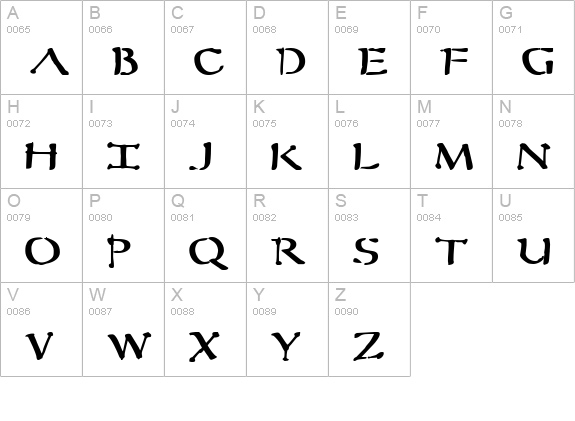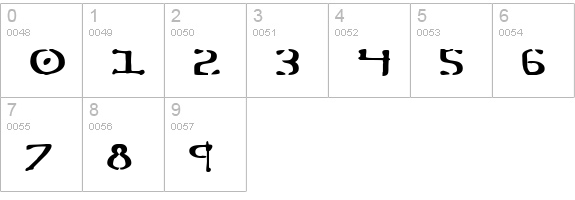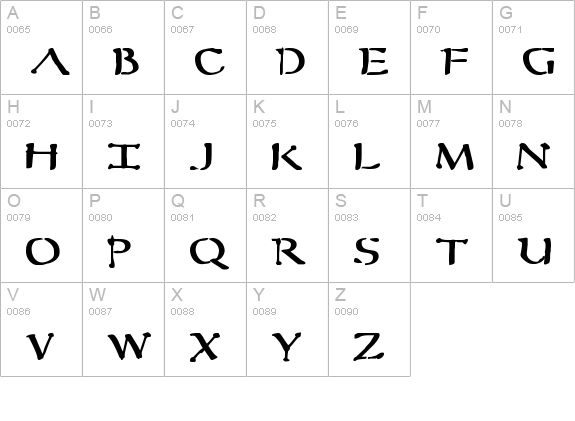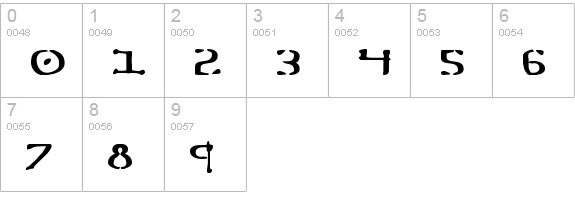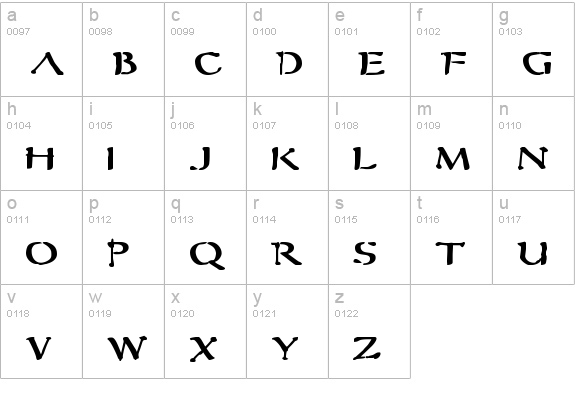
Sever Bold is a strong, high-contrast variant in the Sever typeface family \xE2\x80\x94 well suited to headlines, attention-grabbing titles, and strong calls-to-action.
Introducing Sever Bold, a striking and commanding font that exudes elegance and strength. Designed for those seeking to make a bold statement, Sever Bold is the perfect choice for captivating headlines, impactful logos, and eye-catching advertisements. With its clean lines and expertly crafted letterforms, Sever Bold demands attention and leaves a lasting impression. Whether used in print or digital formats, this font ensures that your message is conveyed with utmost clarity and power. But what sets Sever Bold apart is not only its exceptional design, but also its accessibility. We believe that great design should be available to all, which is why Sever Bold is offered free of charge for personal and commercial use. You can easily download this font at FontsMarket.com, where a wide range of high-quality fonts are freely available for your creative endeavors. So, whether you're a designer working on a professional project or an individual looking to add a touch of sophistication to your personal creations, Sever Bold is the ideal choice. Embrace its boldness, harness its impact, and make your designs truly unforgettable with Sever Bold – the font that combines power and accessibility in one remarkable package.